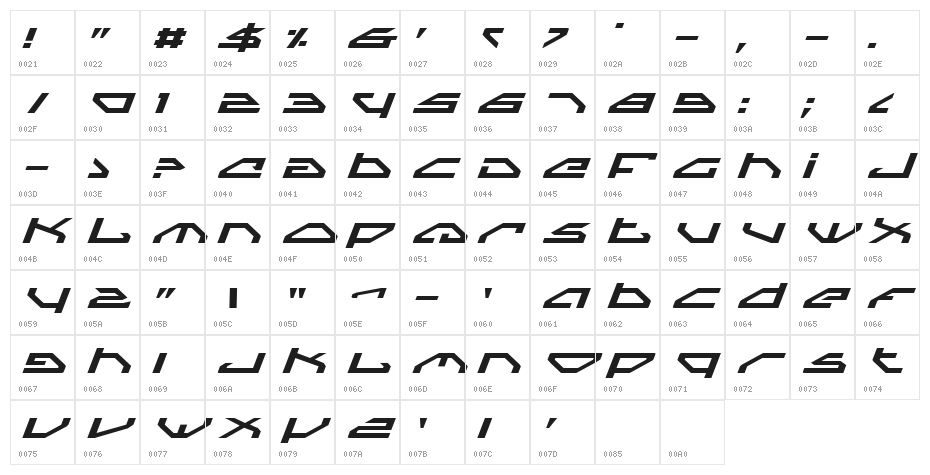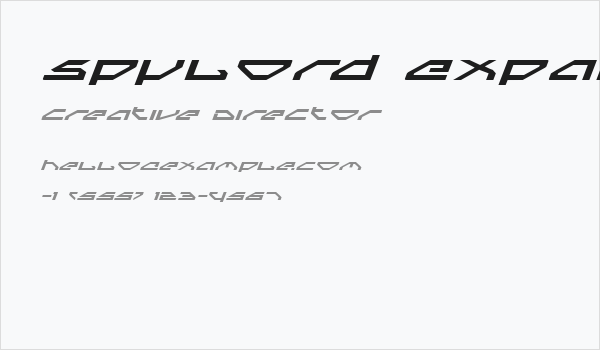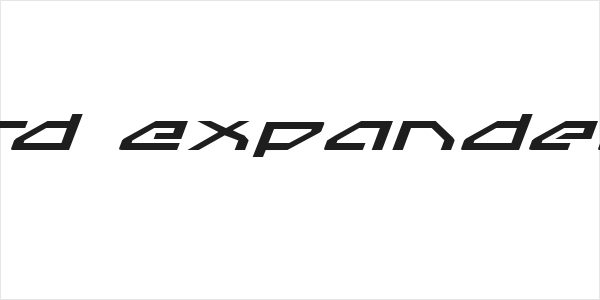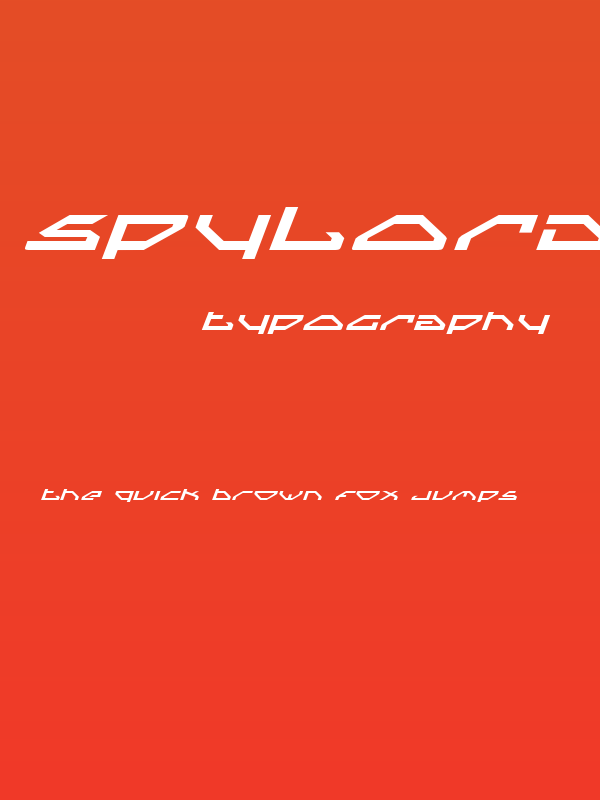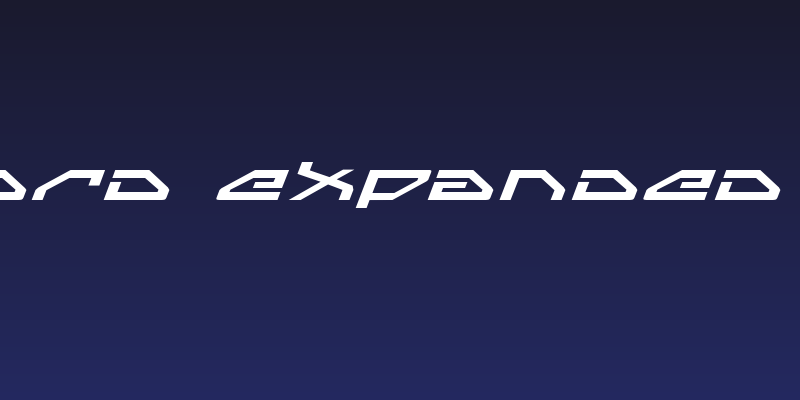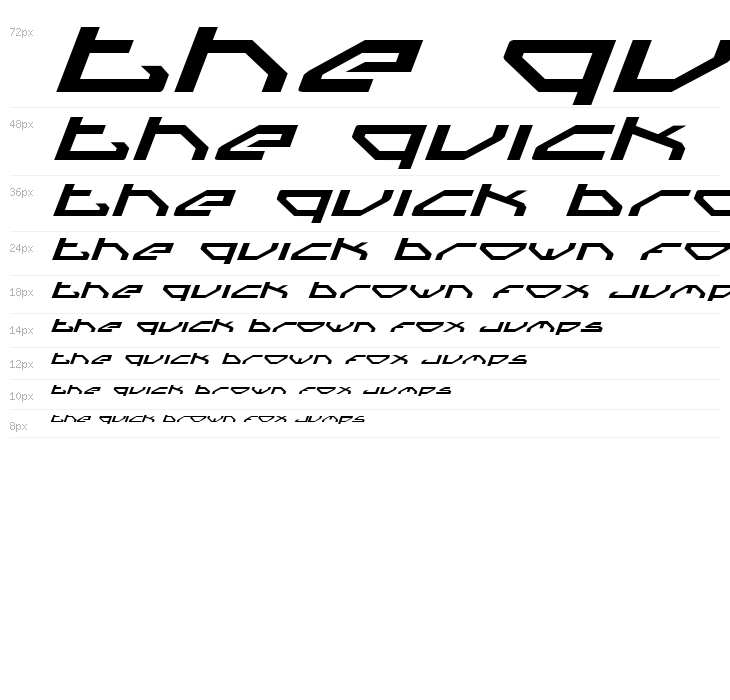
Spylord Expanded Italic Font
Spylord Expanded Italic Description
This font features a futuristic and angular design, characterized by sharp edges and a distinct italic slant. The expanded width gives it a bold presence, making it ideal for attention-grabbing headlines or branding that requires a modern and edgy look. The characters are uniquely stylized, with a consistent geometric pattern that runs through both uppercase and lowercase letters, as well as numbers and special characters. The font's high contrast in stroke thickness adds to its dynamic appearance, while the spacing between characters is relatively tight, enhancing its compact and cohesive feel.
| Proposed Projects | Ideal for sci-fi themed projects, tech branding, video game titles, and futuristic posters. |